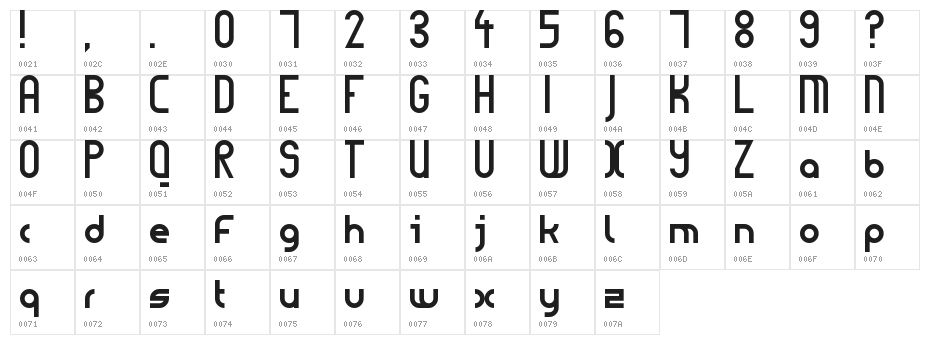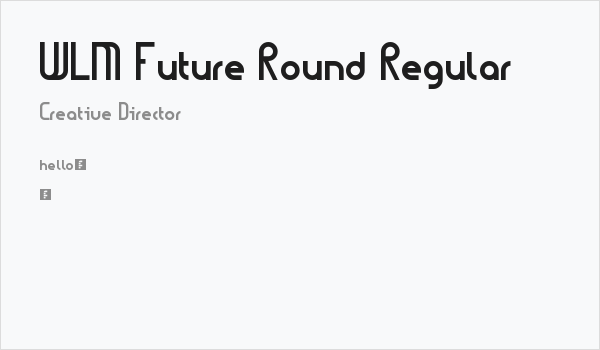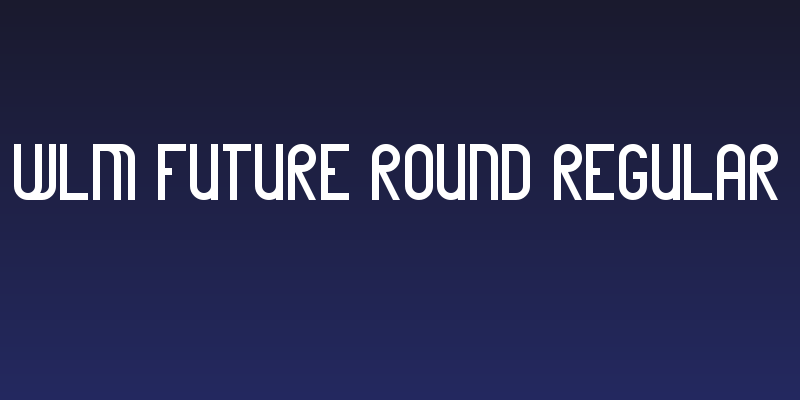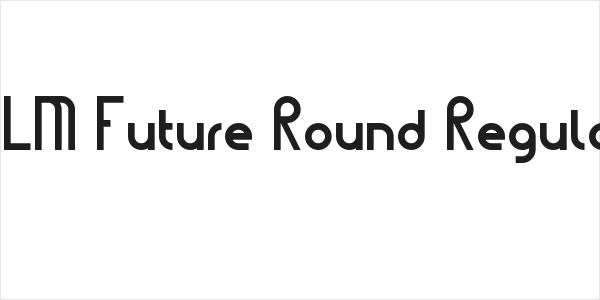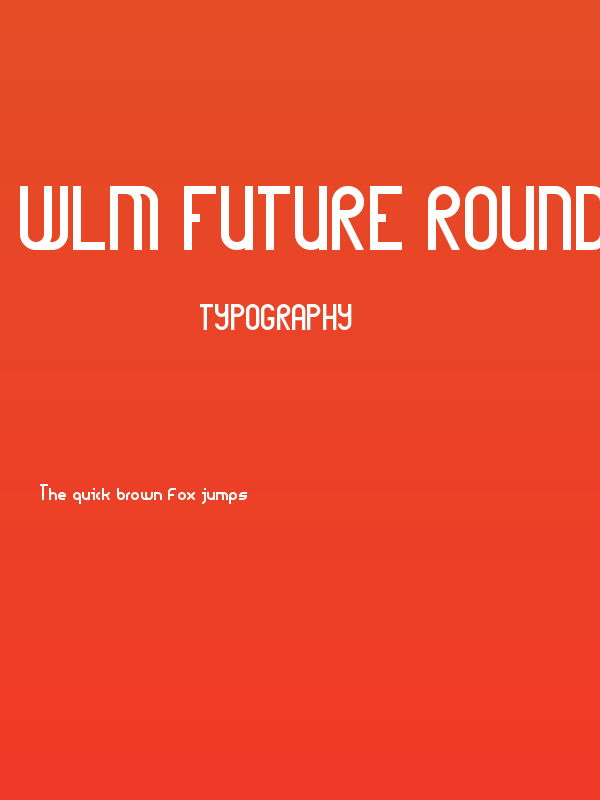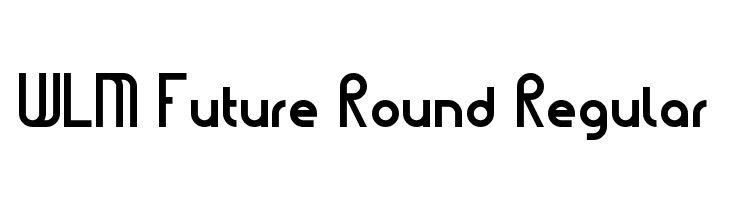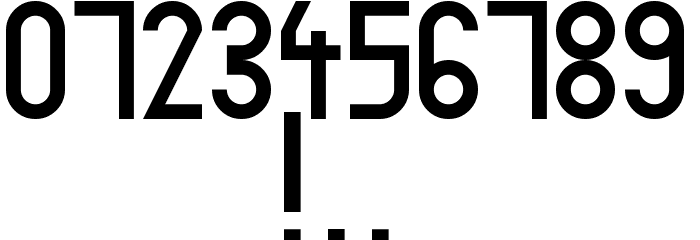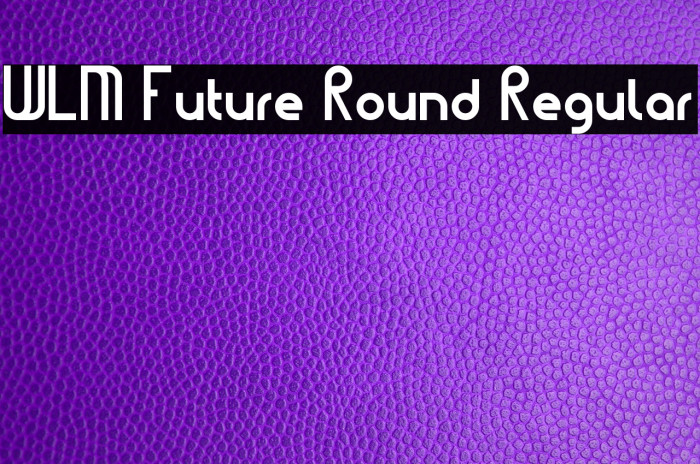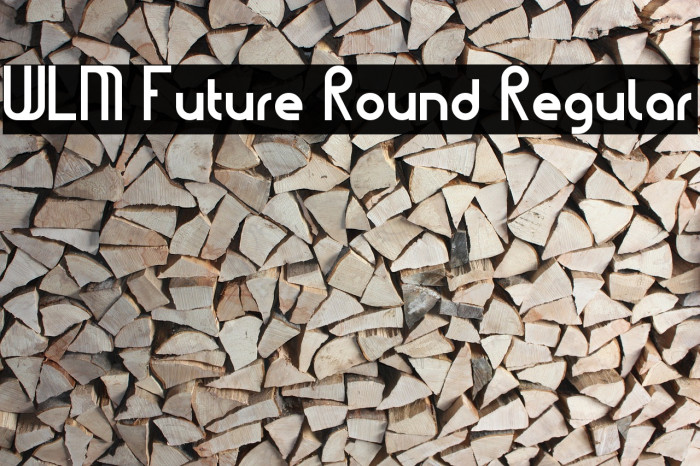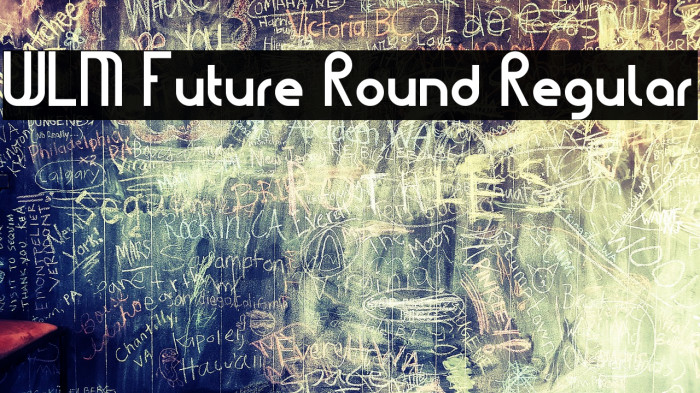
WLM Future Round Regular Font
WLM Future Round Regular Description
This font features a modern and futuristic design with rounded edges that give it a sleek and smooth appearance. The characters are uniform in width, creating a harmonious and balanced look. The uppercase letters are tall and narrow, while the lowercase letters maintain a consistent style with slightly more rounded forms. The numerals are bold and clear, making them easily readable. Special characters are designed to match the overall aesthetic, ensuring a cohesive look across all text elements. The font's clean lines and geometric shapes make it suitable for contemporary design projects.
| Use Case | Headlines, Logos, Digital Interfaces |
| Proposed Projects | Ideal for technology branding, modern advertising, digital interfaces, and futuristic-themed designs. |